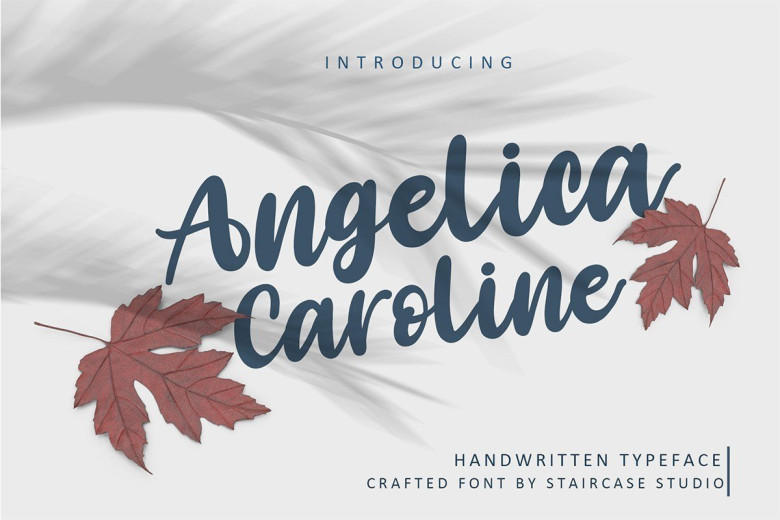
Angelica Caroline Handwritten Script Typeface
Angelica Caroline Typeface is a modern handwritten script font. Made for any professional project branding. Made from font designer Staircase Studio. it will make your design project more beautiful. It is the best for branding, printing, wedding and quotes.
Every letter has a unique and beautiful touch. The font is suitable for any design like branding, fashion, print template, quotes, wedding and etc. This font is free for PERSONAL USE. Link to purchase full version and commercial license : HERE